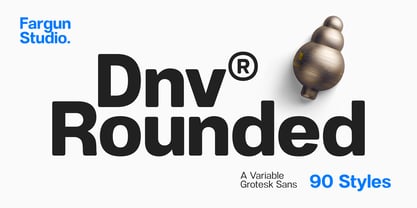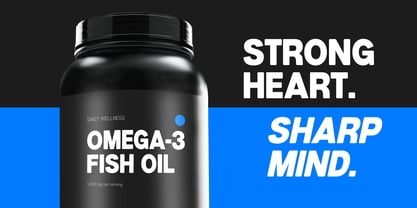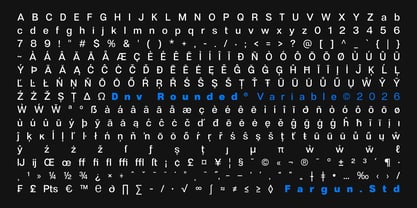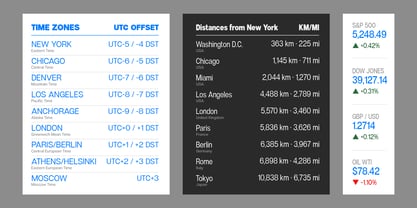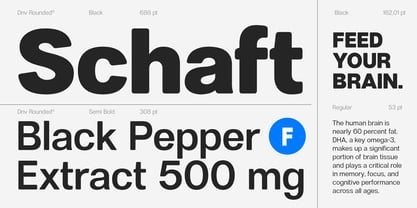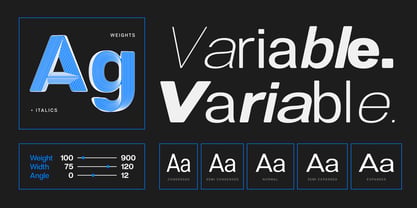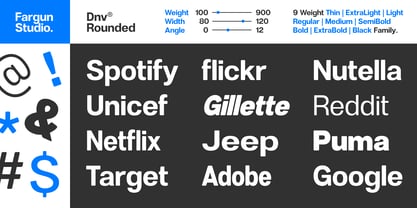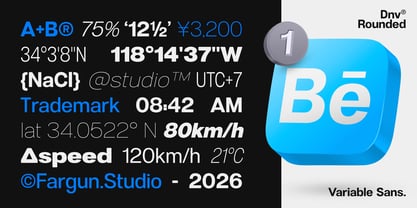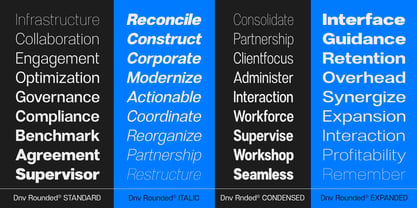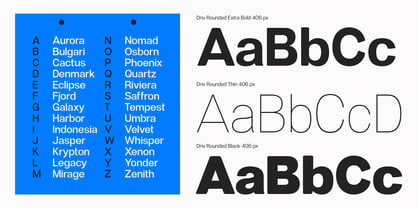
Dnv Rounded
by Fargun Studio
The Dnv Rounded Font Family was designed by Fajar Gunawan and published by Fargun Studio. Dnv Rounded contains 91 styles and family package options. More about this family
Dnv Rounded is a contemporary variable grotesque sans serif with a softer, more humanist touch. Featuring smooth rounded forms, refined proportions, and open letterforms, it delivers excellent readability with a warm, approachable feel. With 90 styles across weights and widths in Upright and Italic, including a variable version, Dnv Rounded offers a flexible system for branding, editorial, UI, and corporate design—balancing clarity, professionalism, and friendly character.
Designers: Fajar Gunawan
Foundry: Fargun Studio